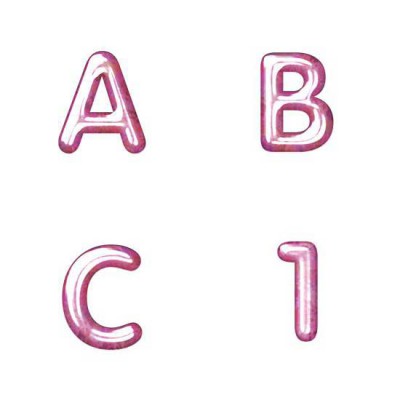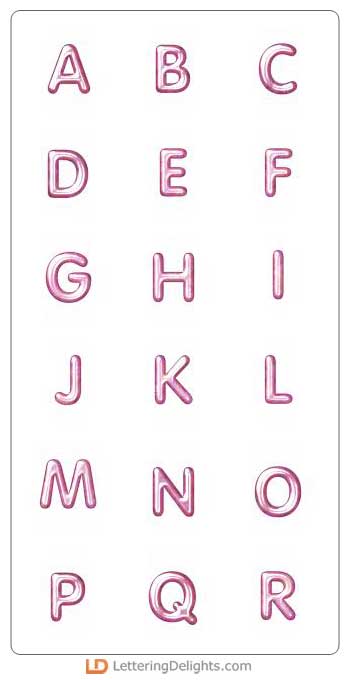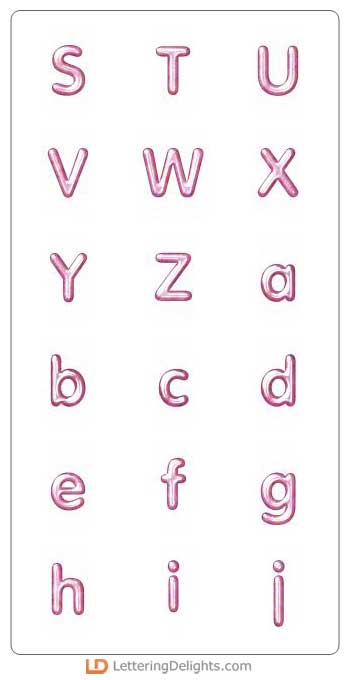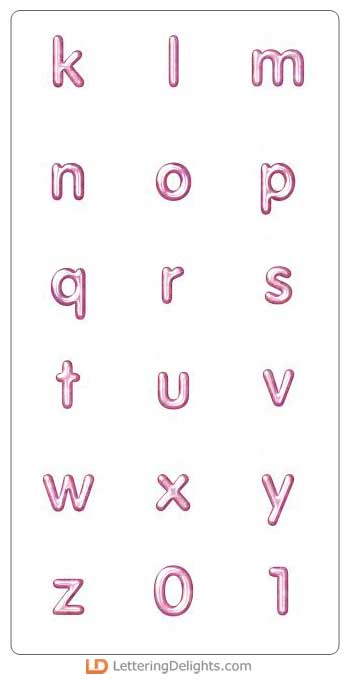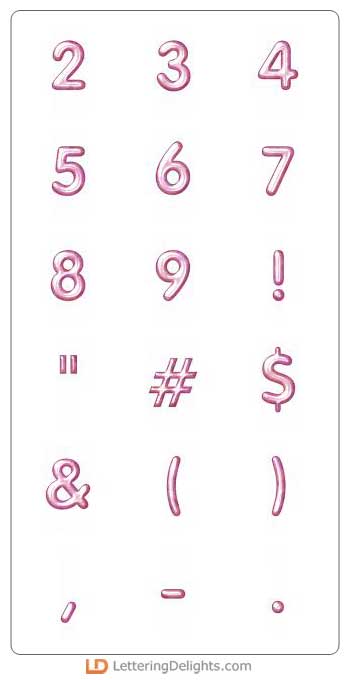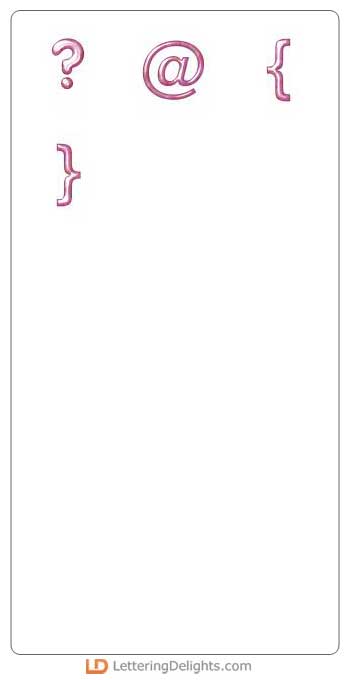
The Blown Glass Alphabets have a delicate, fragile look...like blown glass! The colors are beautiful and will bring some sparkle to your paper crafting creations. Check out both the Rose and the Teal sets.